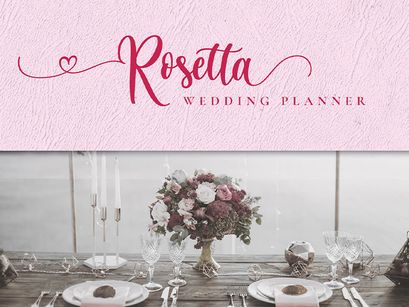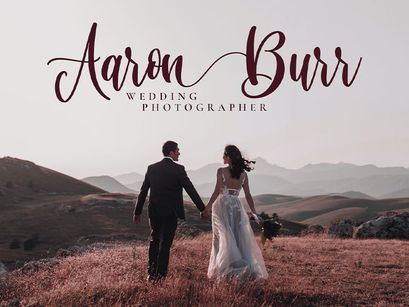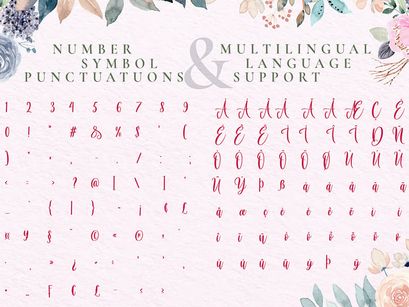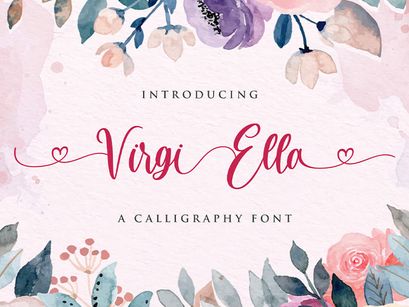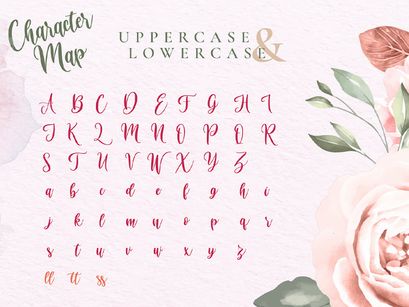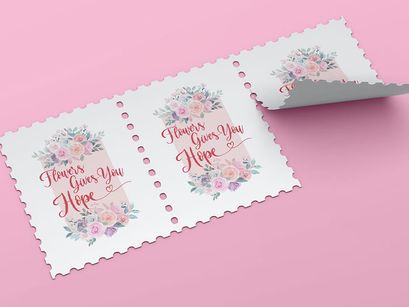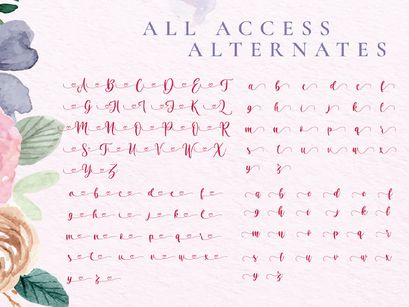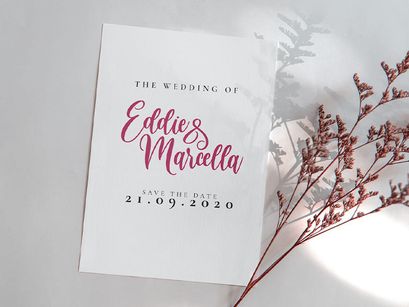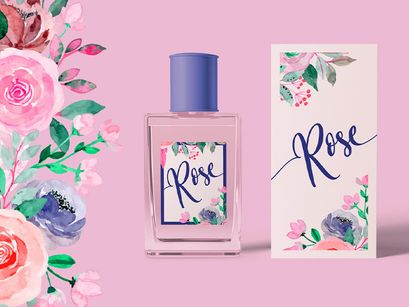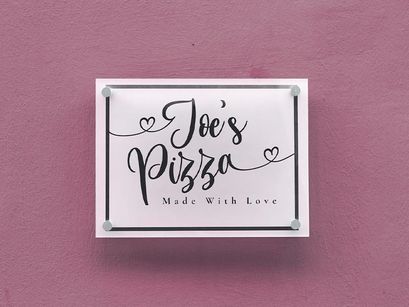
Virgi Ella - Lovely Calligraphy Font
Introducing Virgi Ella - Lovely Calligraphy Font
The Virgi Ella is a lovely modern calligraphy script font. It has a feminine look, which is great for wedding invitations and anniversaries, blogs and logos. Virgi Ella is a handwritten script font, described by an elegant touch, perfect for your favorite projects!
• Stylistic Alternates
• Ligatures
• Uppercase and Lowercase letters
• Numbering and Punctuations
• Multilingual Support